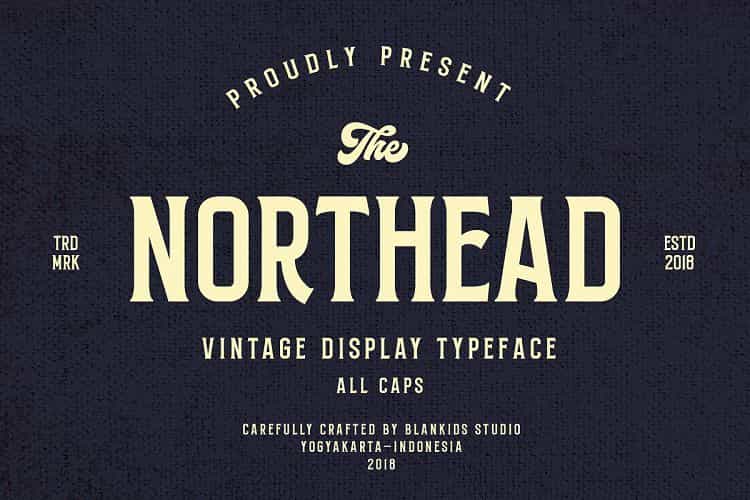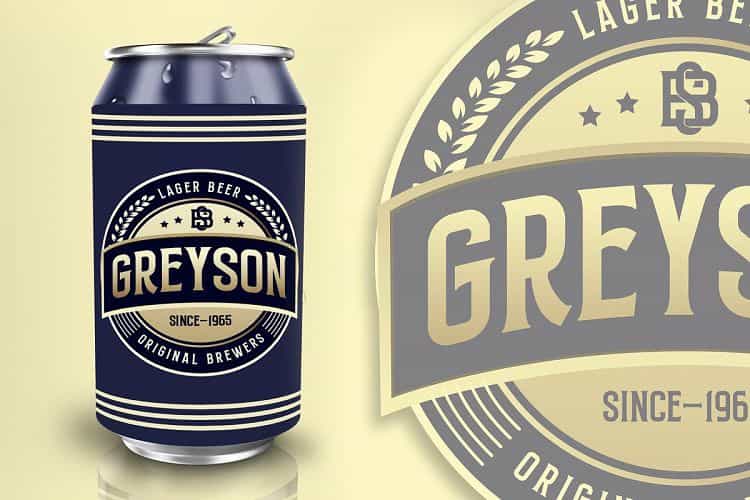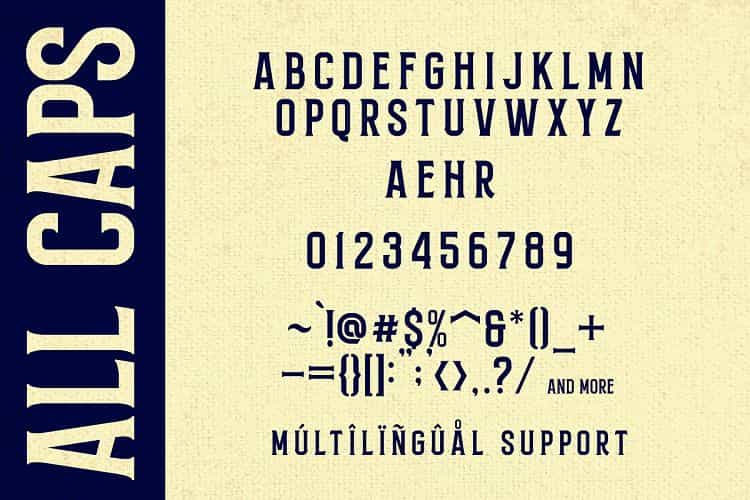
Northead is our brand new product – an all caps serif display font inspired by vintage label beer packaging and signage from decades past. Perfect for branding, packaging, poster designs, headline flyers, book covers, T-shirt design projects, T-shirt sizing design projects and additional uses, Northead will bring vintage-like charm into modern day designs and applications alike.